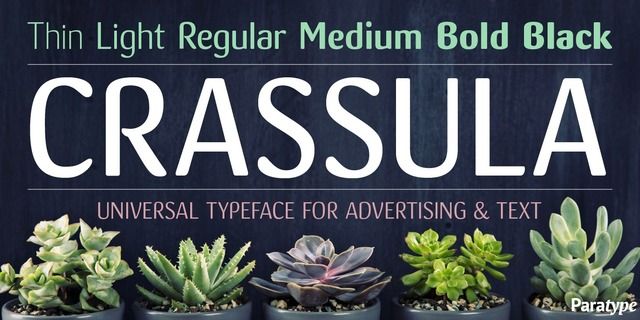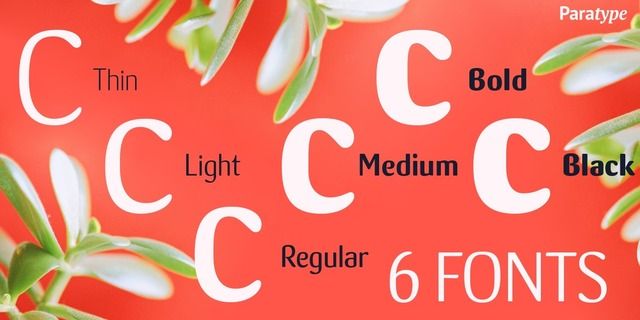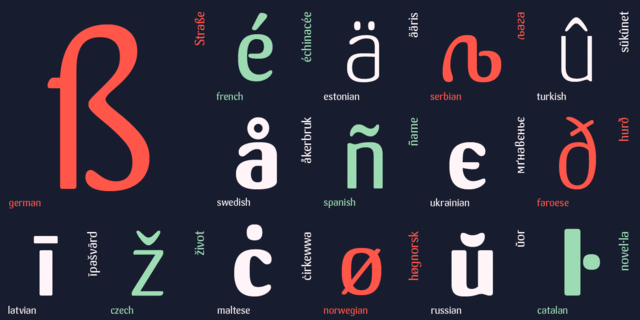
Crassula (6 fonts)
About Crassula is a versatile display font. Like the plant of the same name (Crassula, jade tree, money plant), which has thick juicy leaves, the font is distinguished by rounded contours and smoothed out forms of elements. Stylistic Alternates offer more traditional letter shapes and make Crassula more readable in long texts. Six weights allow a broad range of applications - from informal book and magazine headlines to emotional marketing ads. The font was designed by Natalia Vasilyeva and released by ParaType in 2018.
Associations for font family CrassulaTypeface personality and character: